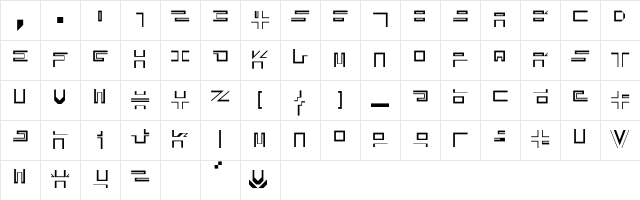
City Avenue
Style: Avenue
City Family
City Avenue
Design Context for City
City is a composed and adaptable typeface that performs quietly and consistently across a wide range of design contexts.